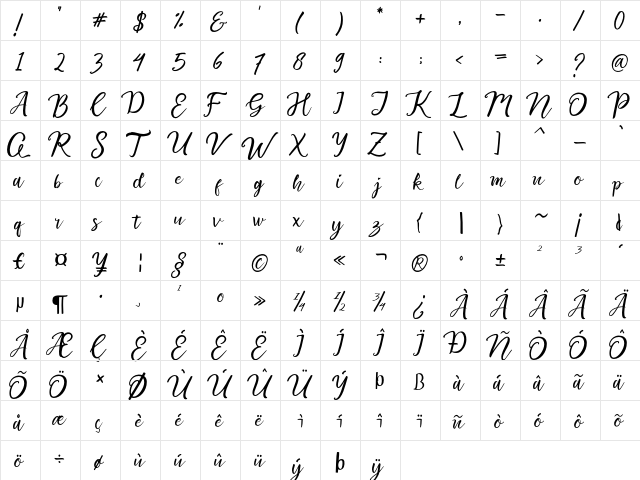
Sweet Candy Pink Script Demo Regular
Design Context for Sweet Candy Pink Script Demo Typeface
Sweet Candy Pink Script Demo brings a calligraphic fluidity to the page — its connecting strokes and expressive curves give it an unmistakably human quality.
Font Pairing: Combine Sweet Candy Pink Script Demo with a simple geometric sans for maximum contrast — the tension between flowing curves and clean structure is a classic typographic pairing.
Pro Tip: Pair Sweet Candy Pink Script Demo with a clean sans-serif for supporting text. The contrast between fluid script and geometric structure creates an elegant typographic hierarchy.